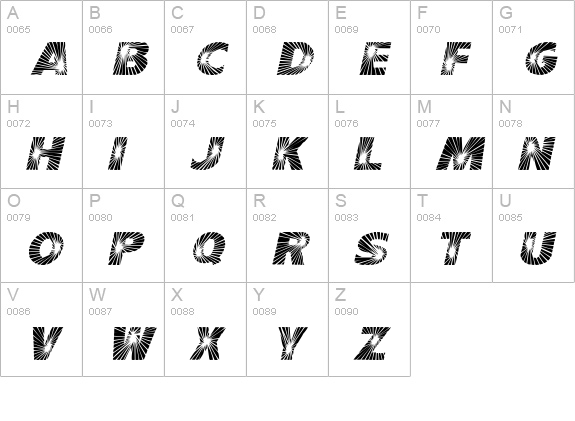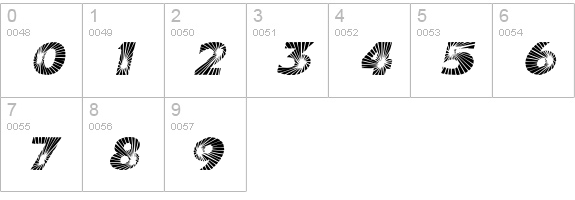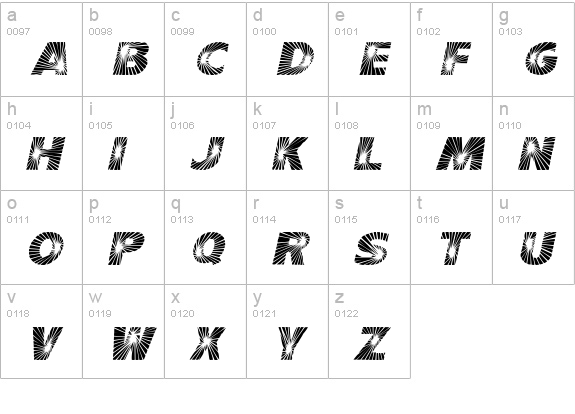
Starburst Italic Font Details
Starburst Italic is a distinctive, italic variant in the Starburst typeface family \xE2\x80\x94 well suited to design and typography projects.
Introducing Starburst Italic, a captivating and dynamic font that effortlessly adds a touch of elegance and flair to any design project. With its sleek and curvaceous letterforms, this font exudes a sense of energy and movement that is sure to captivate and engage your audience. Starburst Italic combines the perfect balance of boldness and sophistication, making it an ideal choice for logos, headlines, invitations, and more. Its unique italicized style adds a sense of modernity and creativity, allowing your designs to stand out from the crowd. But what makes Starburst Italic even more irresistible is the fact that it is completely free! Yes, that's right – this stunning font is freely available to download at FontsMarket.com. Now you can enhance your designs with a high-quality typeface without breaking the bank. Whether you're a professional designer looking to elevate your creations or a novice designer exploring new possibilities, Starburst Italic offers endless opportunities for creativity. Its versatility allows it to seamlessly adapt to various design styles, ensuring that it remains a timeless choice for years to come. So why wait? Download Starburst Italic today at FontsMarket.com and unleash your imagination. Let this font be the shining star of your next design project, and watch as it brings your vision to life with its captivating and bold presence.